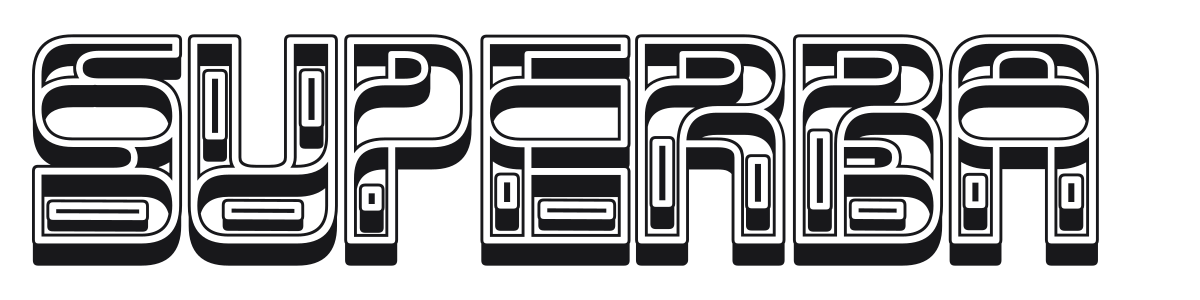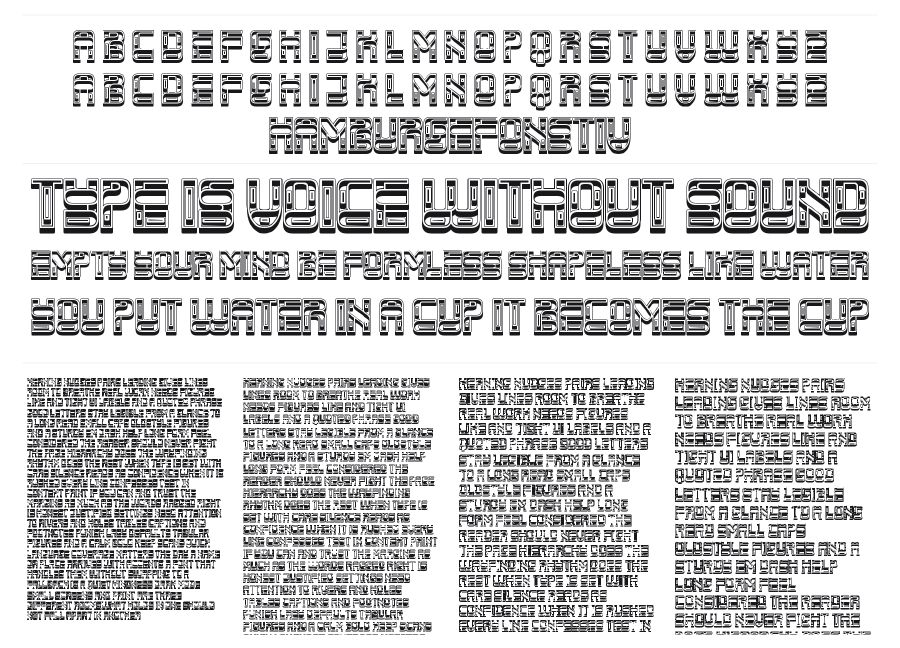
Superba
Superba is a wide, ultra-bold display font with stacked inline stripes and a drop shadow that give each character a layered, almost neon-sign depth. The rounded rectangular construction and retro-futurist feel pull from 1970s sci-fi and arcade signage traditions. It reads as big, loud, and unapologetically fun at headline sizes.